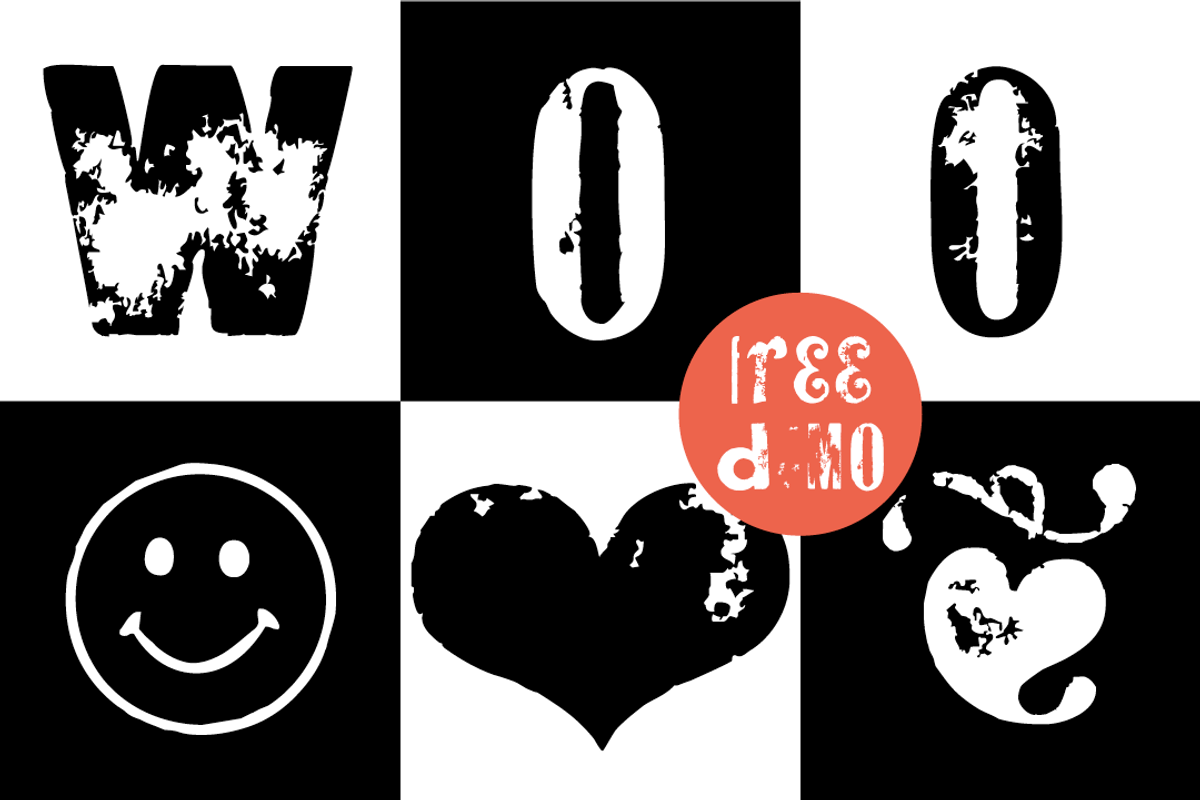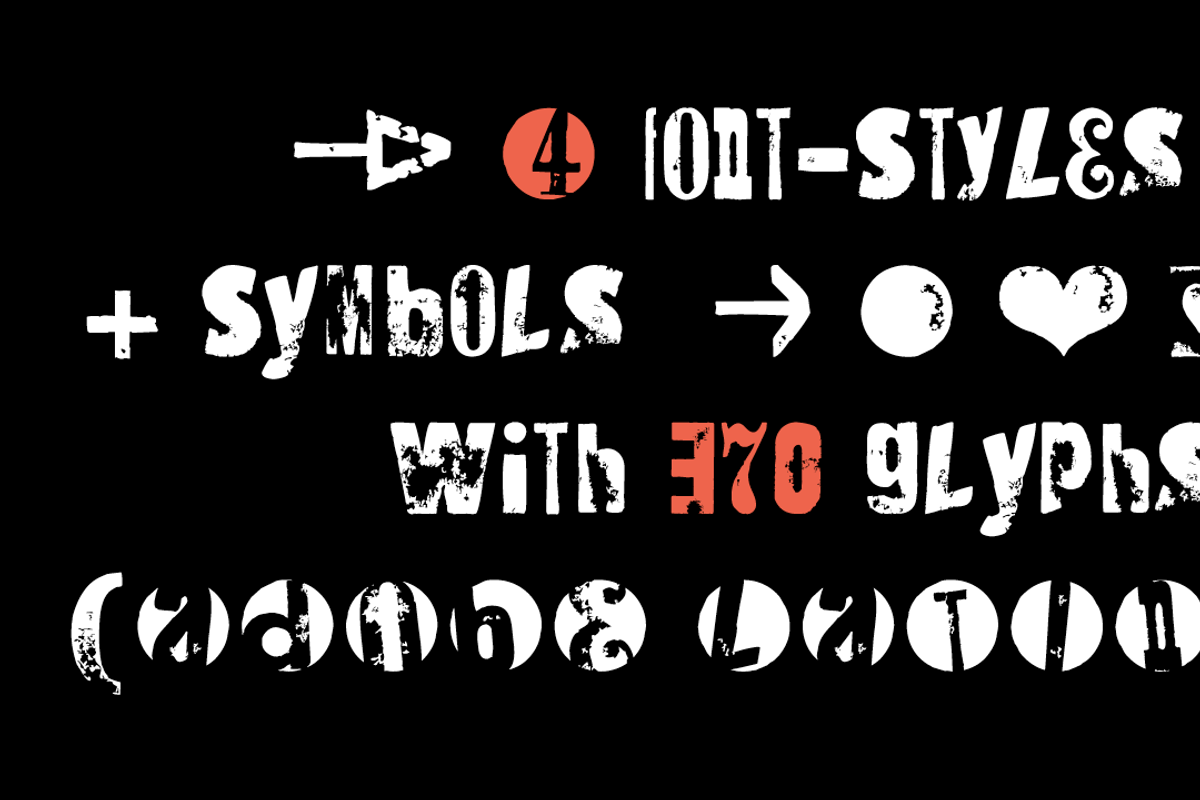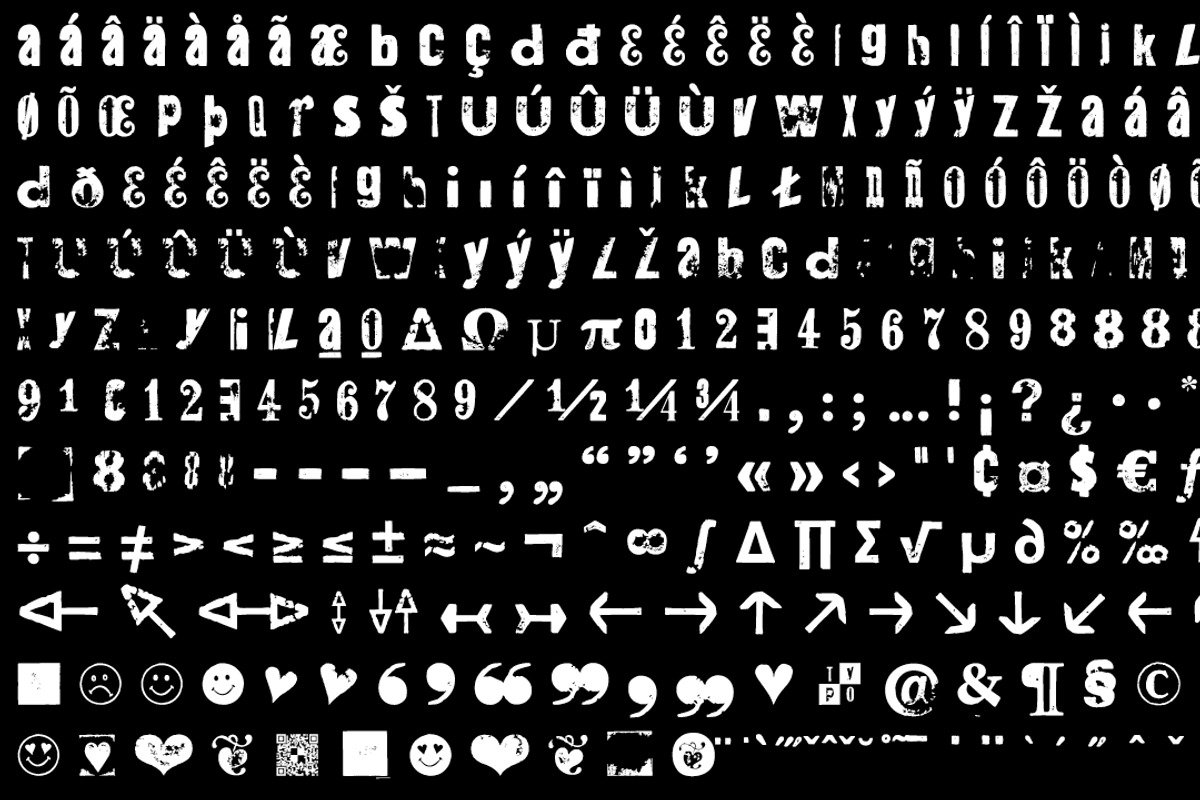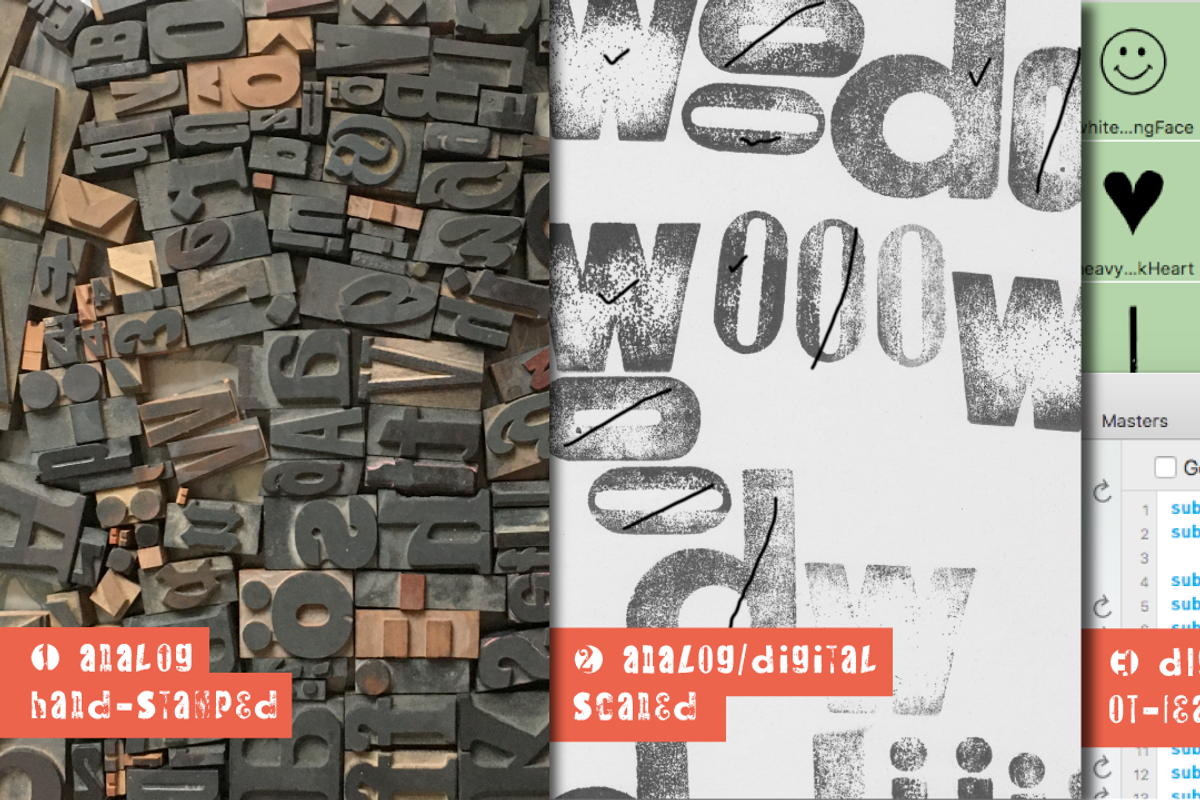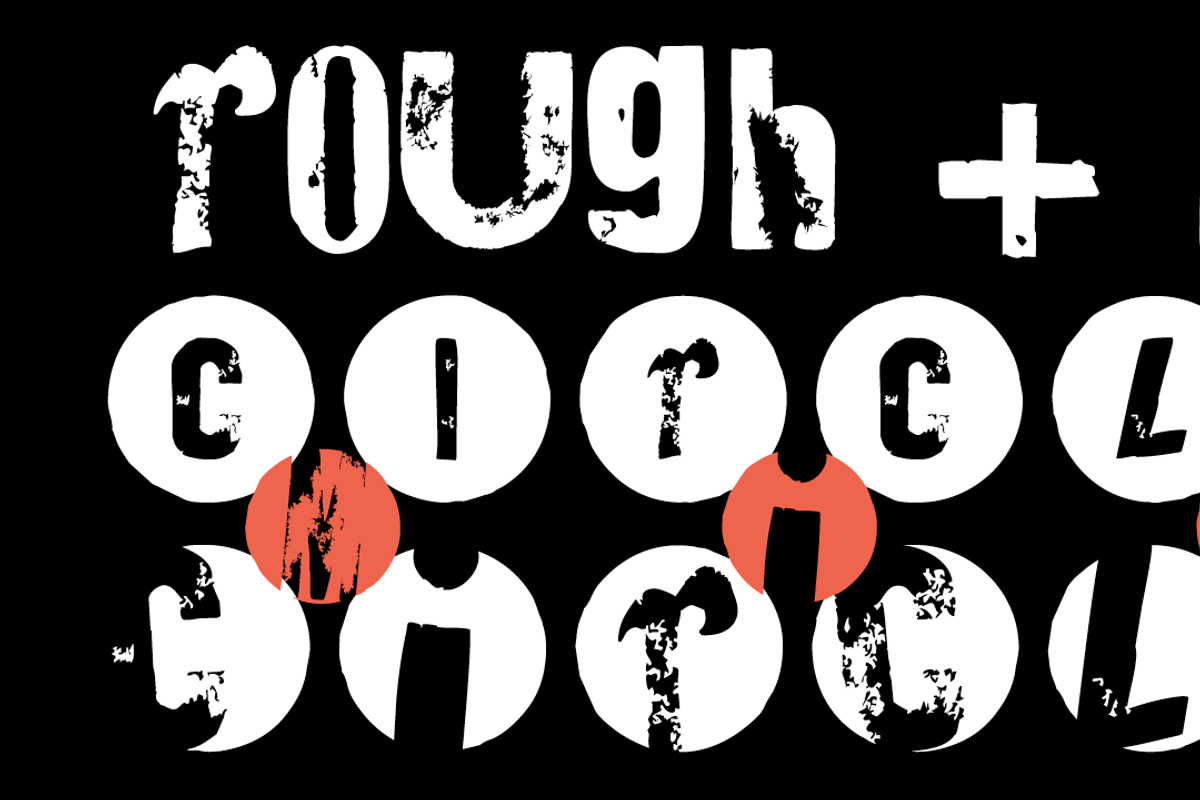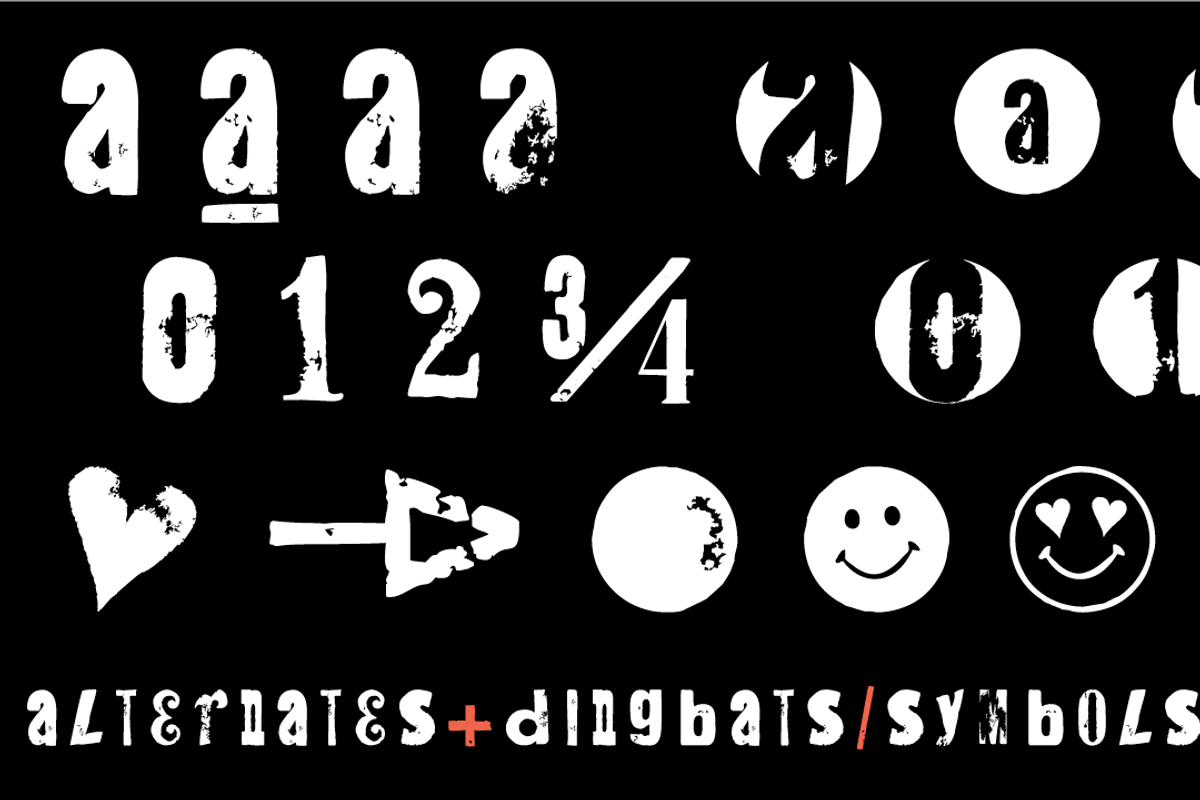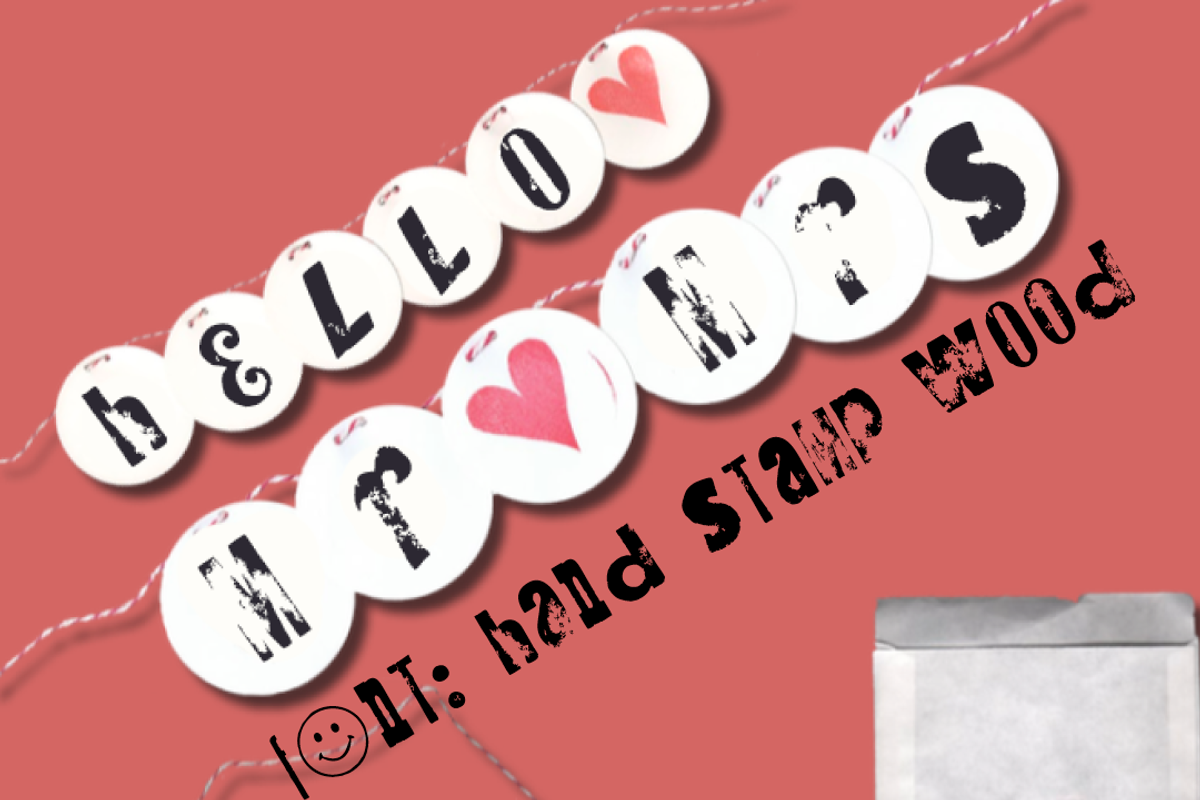
FONT | Hand Stamp Wood
The typeface Hand Stamp Wood is designed from 2020 for the font foundry Typo Graphic Design by Manuel Viergutz.
The display font based on original old wood letter, stamps, DIY and is inspired in the past and present.
4 font-styles (Rough, Mix, Circle, CircleMix) with 370 glyphs (Adobe Latin 1) incl. decorative extras like arrows, dingbats, emojis, symbols, geometric shapes, decorative ligatures (type the word #LOVE for ❤ or #SMILE for ☺ as OpenType-Feature dlig) and stylistic alternates (2 stylistic sets).
For use in logos, magazines, posters, advertisement plus as webfont for decorative headlines. The font works best for display size.